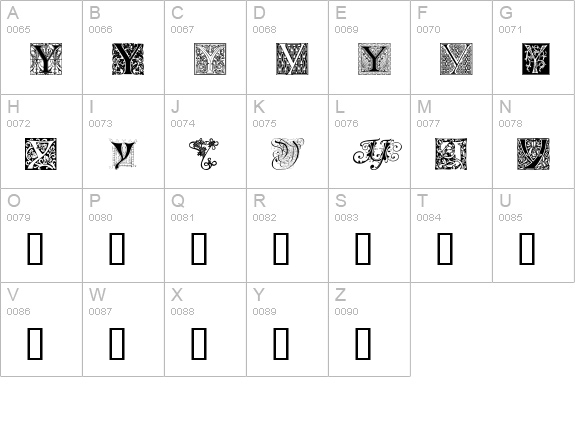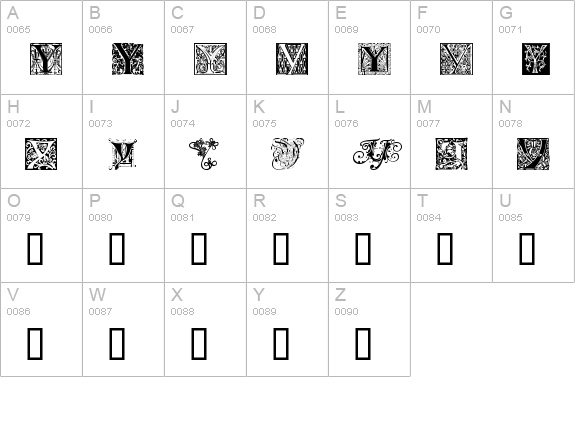
Ornamental Initials Y Font Details
Ornamental Initials Y font is a stunning display typeface that exudes elegance and sophistication. This ornate font features intricate details and decorative elements that make it perfect for adding a touch of luxury to your projects. The elaborate design of the initials adds a regal and timeless feel to any text. What makes Ornamental Initials Y font even more appealing is that it is available for free download at FontsMarket.com. This means you can easily enhance your designs with this exquisite font without any cost. Whether you're working on invitations, posters, or any other creative project, Ornamental Initials Y font will surely make a statement and elevate your work to the next level. Download this font today and give your projects a touch of opulence and grandeur.